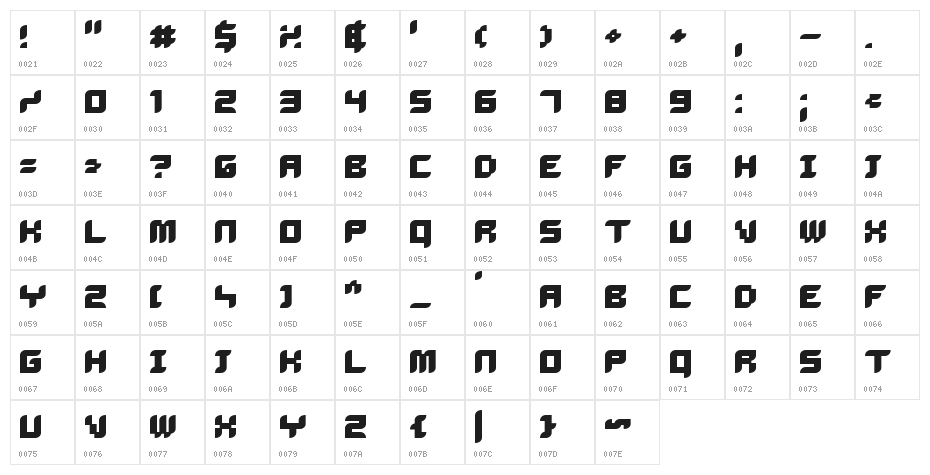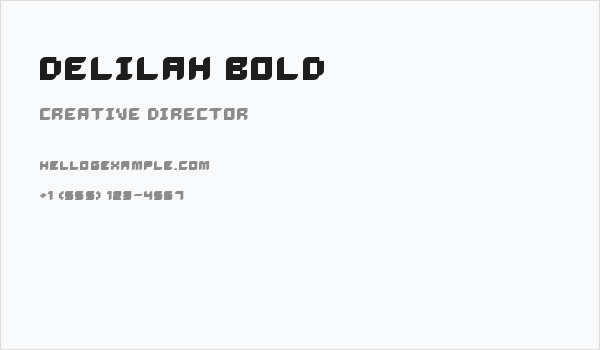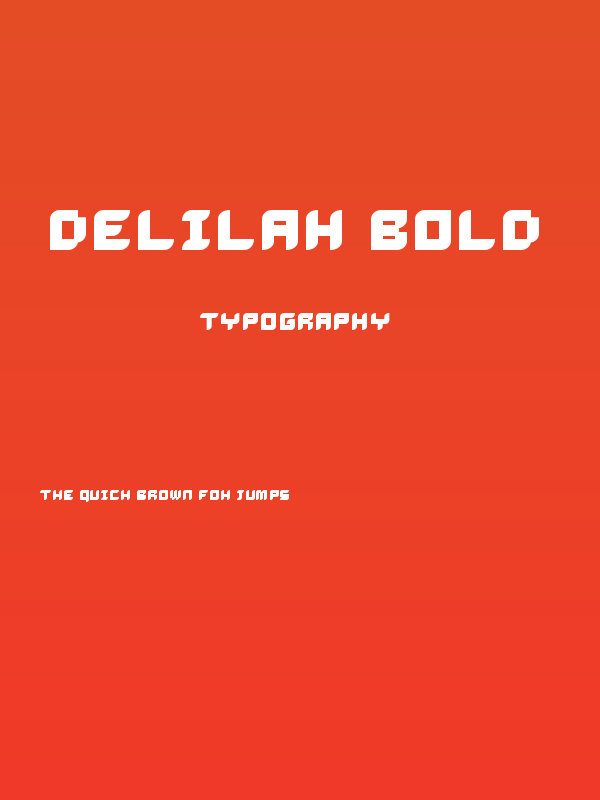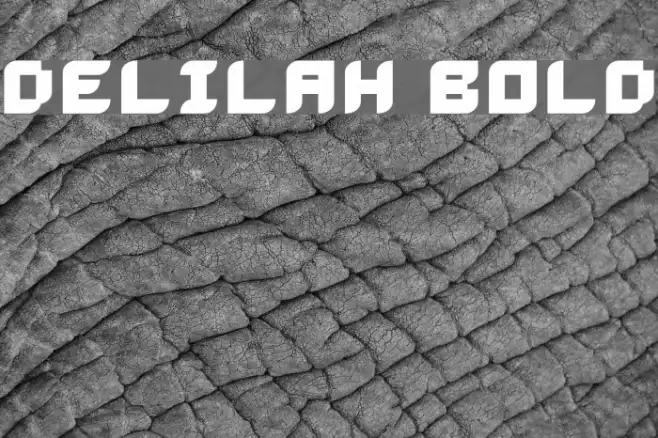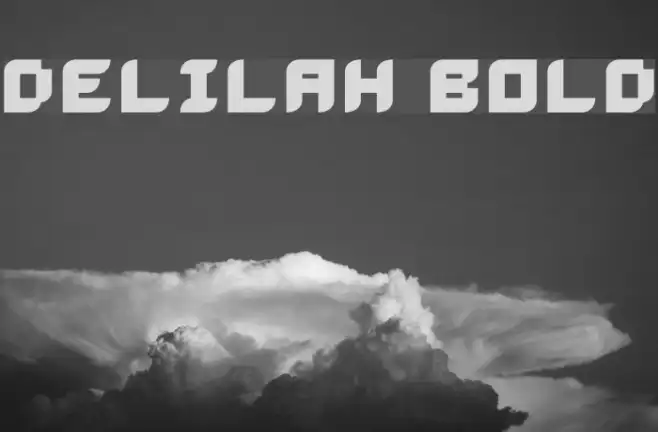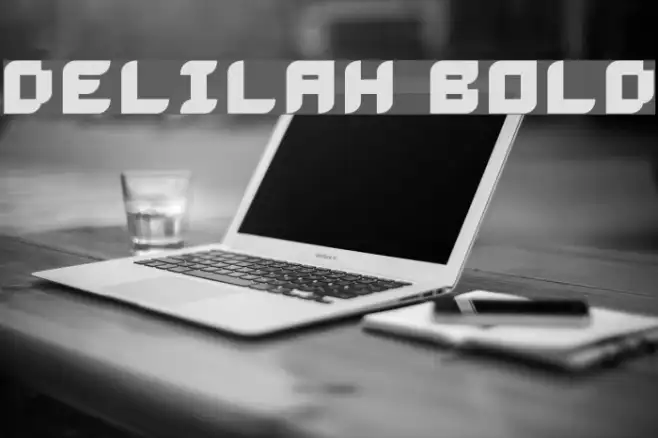
Delilah Bold Font
Delilah Bold Description
This font features a bold and geometric design with a modern flair. The characters are constructed with thick, uniform strokes that create a strong visual impact. Each letter has a slightly rounded edge, adding a touch of softness to the otherwise robust appearance. The font maintains a consistent weight throughout, ensuring readability and clarity. The numerals and special characters are designed to match the boldness of the letters, providing a cohesive look across all elements. This typeface is ideal for making a statement with its eye-catching style.
| Proposed Projects | Ideal for branding, headlines, posters, and digital media where a strong, modern presence is desired. |